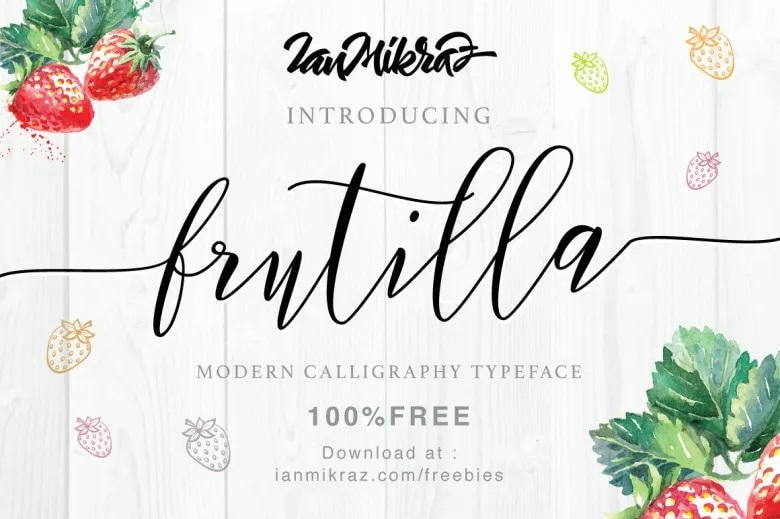
Frutilla Script Font
Frutilla Script Free Font Typeface from Ianmikraz Studio this is the latest modern calligraphy font that you would love to have. Contemporary style, beauty, typeface and an aesthetic Copperplate with a clean cut, modern technique and refined class is a timeless package with an elegant edge.
Frutilla Script Calligraphy Font